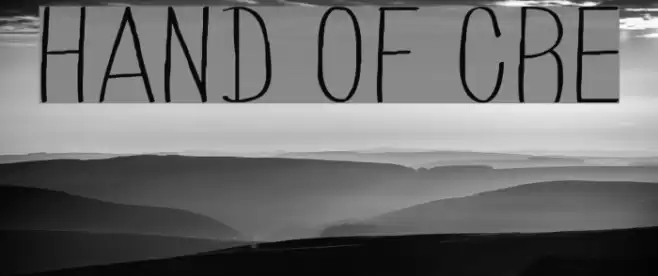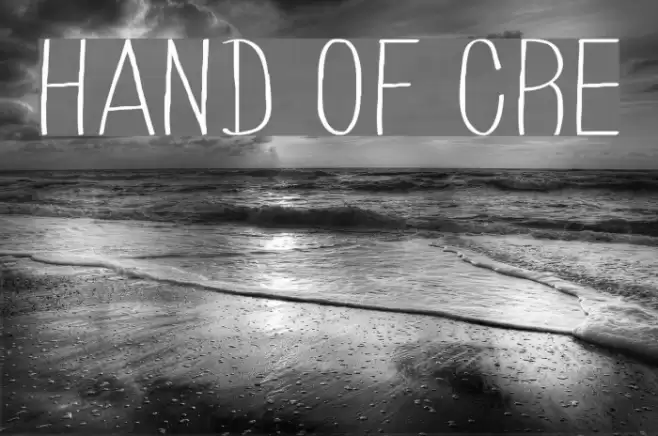
HAND OF CRE Font
HAND OF CRE Description
This font features a playful, handwritten style with tall, narrow characters. The strokes are uneven, adding a whimsical and casual feel. The uppercase and lowercase letters maintain a consistent height, contributing to a cohesive look. Numbers and special characters follow the same playful design, making them suitable for informal and creative projects. The font's unique charm lies in its imperfect lines and organic flow, reminiscent of hand-drawn lettering.
A playful, handwritten font with tall, narrow characters and uneven strokes from Uncategorized fonts.
- Proposed Projects: Ideal for greeting cards, children's books, casual invitations, and creative branding.
- Overall Style: Casual
- Use Case: Logos, Headlines, Informal Text